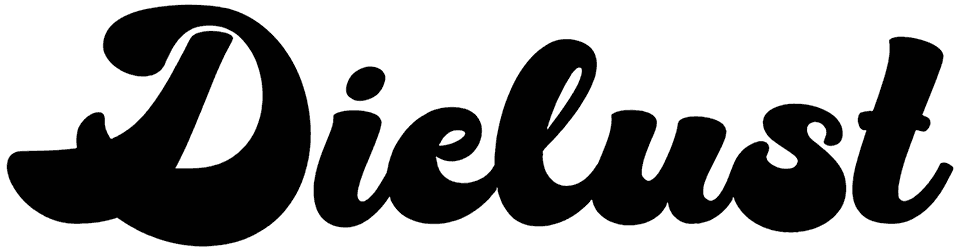
Dielust Font
Dielust font has a dramatic, stylish personality where the letters feel made for designs that want attention and emotion. Its expressive character gives words a bold visual rhythm, balancing elegance with a slightly rebellious edge. It’s the kind of typeface that can turn a simple headline into something that feels like a statement.
Use this retro font for fashion branding, music artwork, magazine covers, posters, creative campaigns, or luxury-inspired graphics. Dark backgrounds, metallic accents, high-contrast colors, editorial layouts, and carefully spaced typography will help its distinctive mood stand out beautifully.